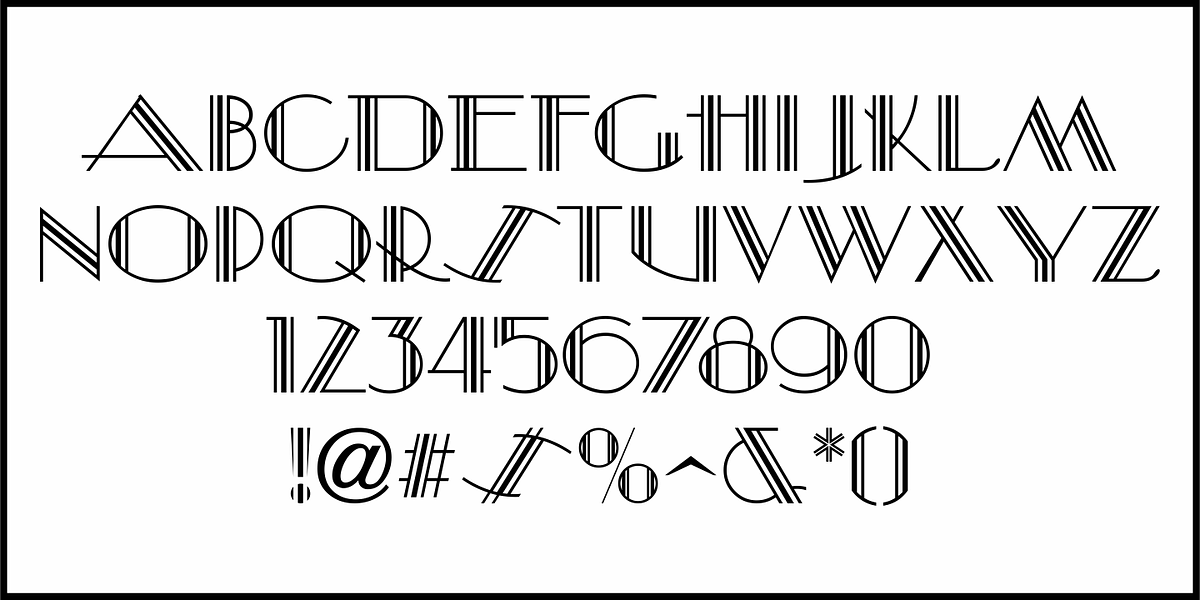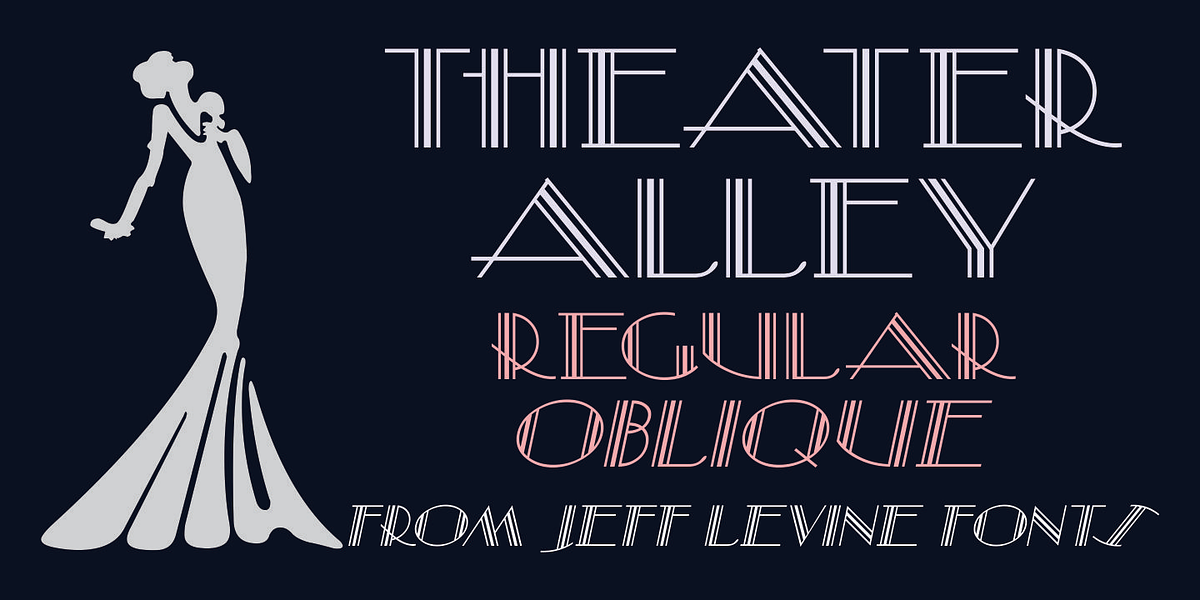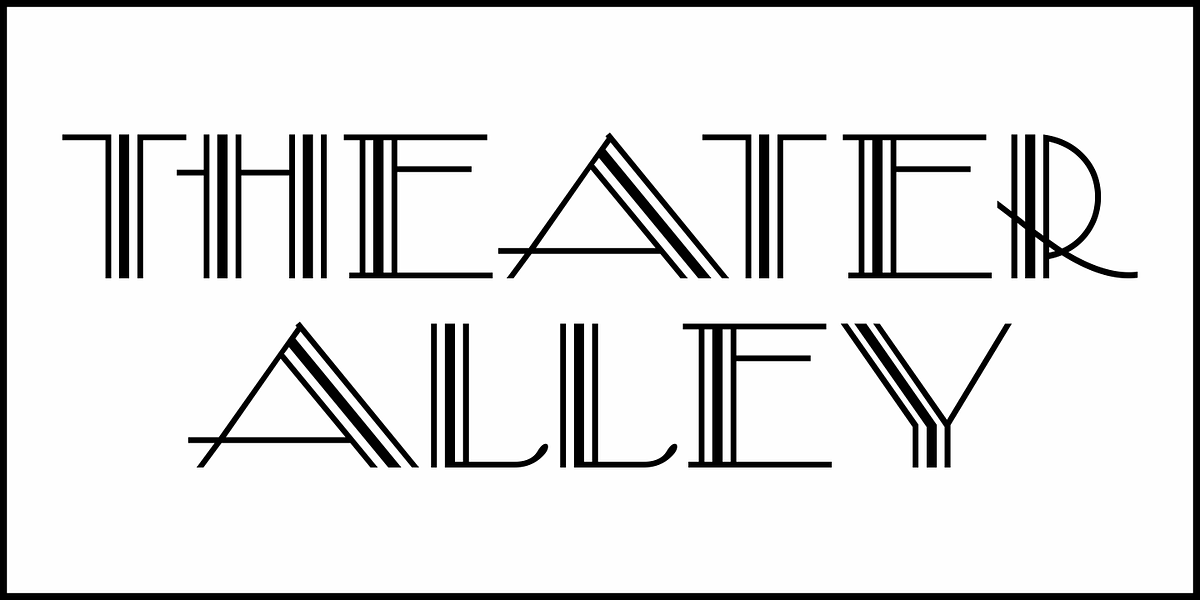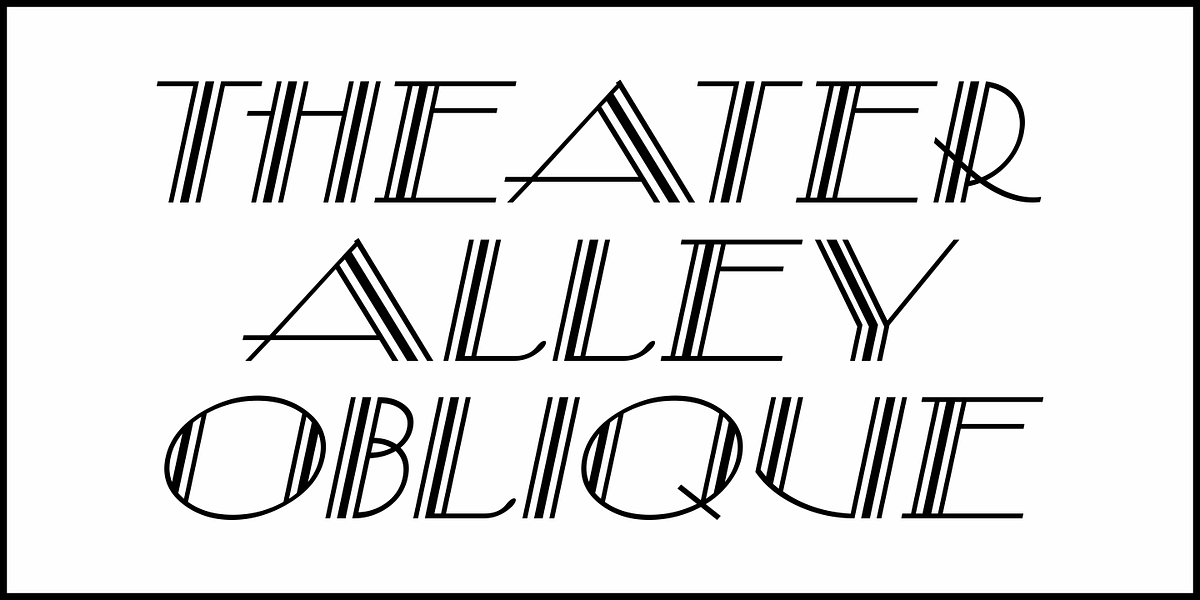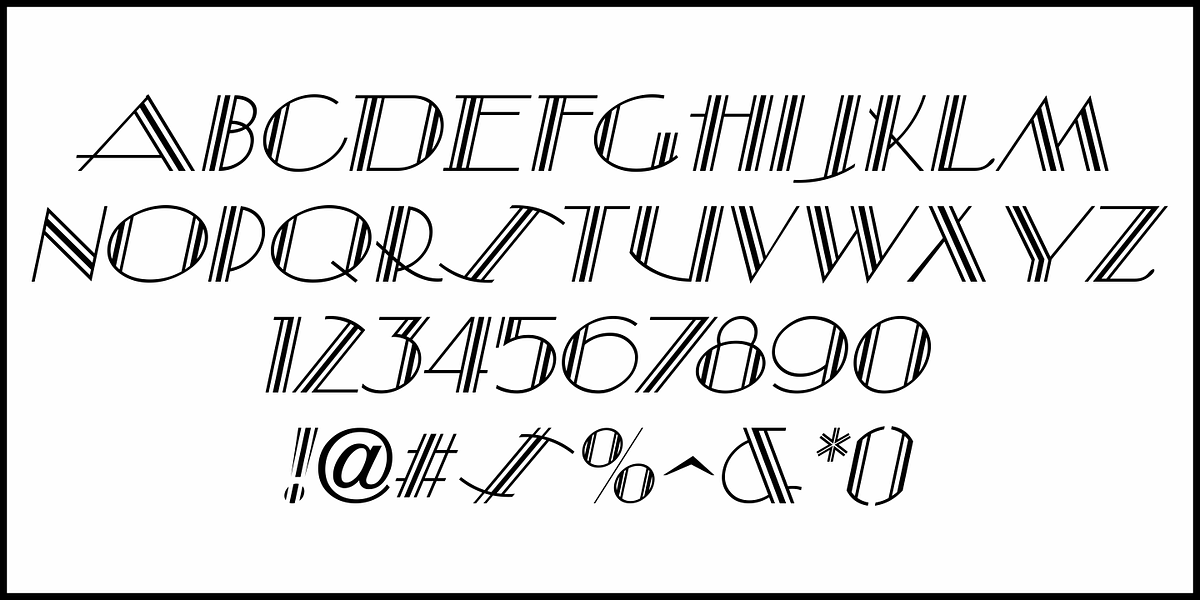
Theater Alley JNL
Found within the pages of the 1927 edition of the “Welo Studio Handbook - Letter and Design for Artist and Advertisers” is an elegant Art Deco multi-line alphabet.
Digitally redrawn as Theater Alley JNL, it is available in both regular and oblique versions.
The font takes its name from that of a street in New York, although the street’s name uses the old-fashioned spelling of “theatre”.